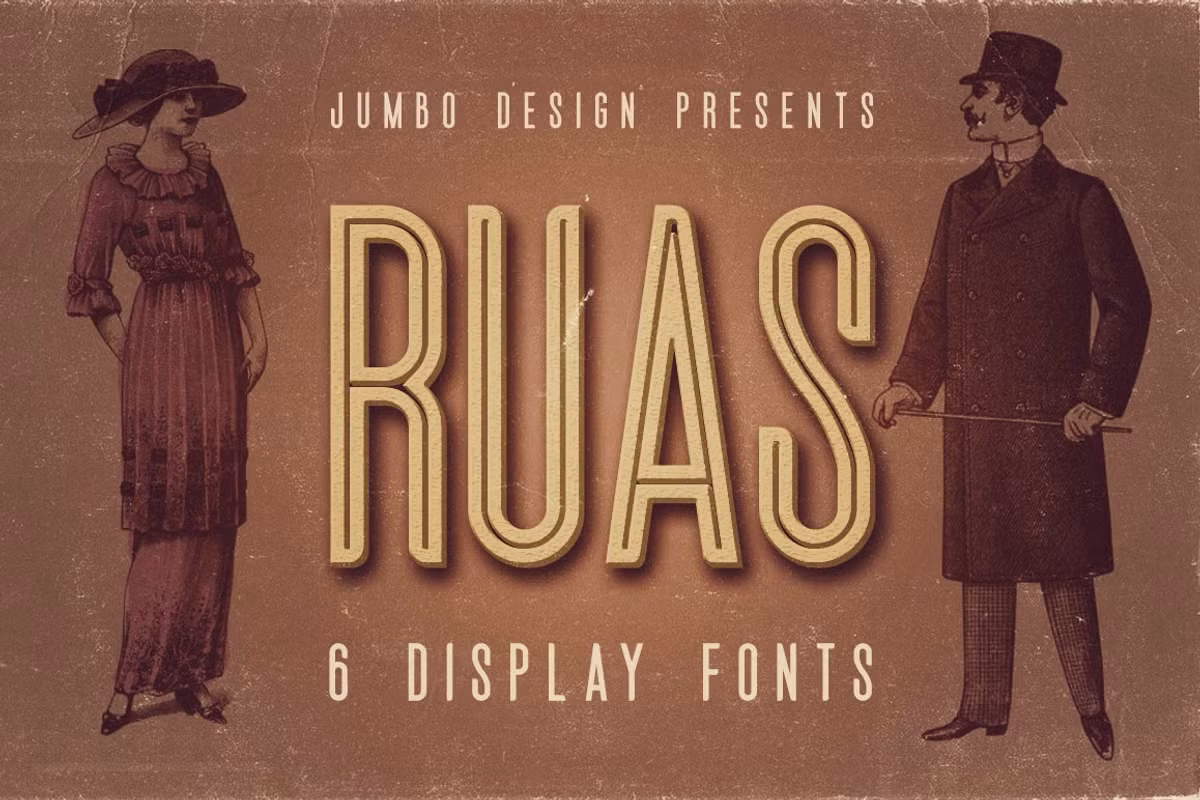
Ruas - Vintage Style Font Free Download
Ruas - Vintage Style Font Free Download is a charming and timeless typeface designed to bring a classic, retro feel to your designs. With its bold, vintage-inspired letterforms, this font is perfect for creating logos, branding, posters, invitations, and more. Its distinctive design captures the essence of the past while maintaining a modern, clean look, making it ideal for a wide range of creative projects. Whether you’re designing for a vintage brand, a retro-themed event, or a nostalgic campaign, Ruas - Vintage Style Font Free Download allows you to explore its unique style in personal projects before purchasing a commercial license. Add a touch of retro elegance and personality to your designs with this beautifully crafted vintage-style font.